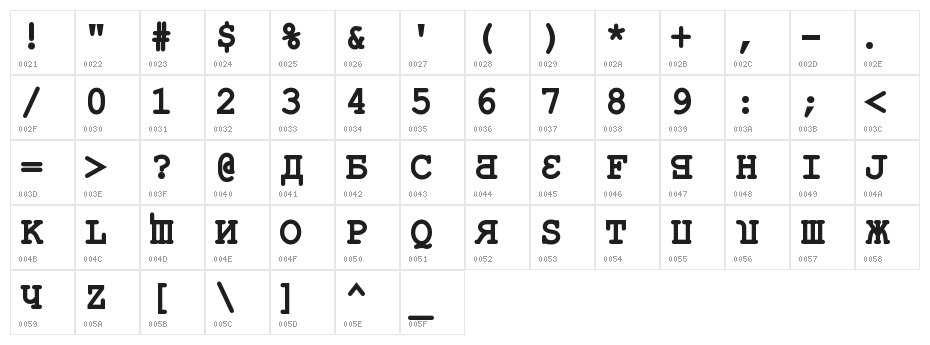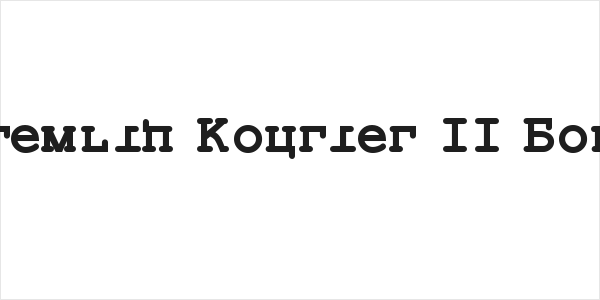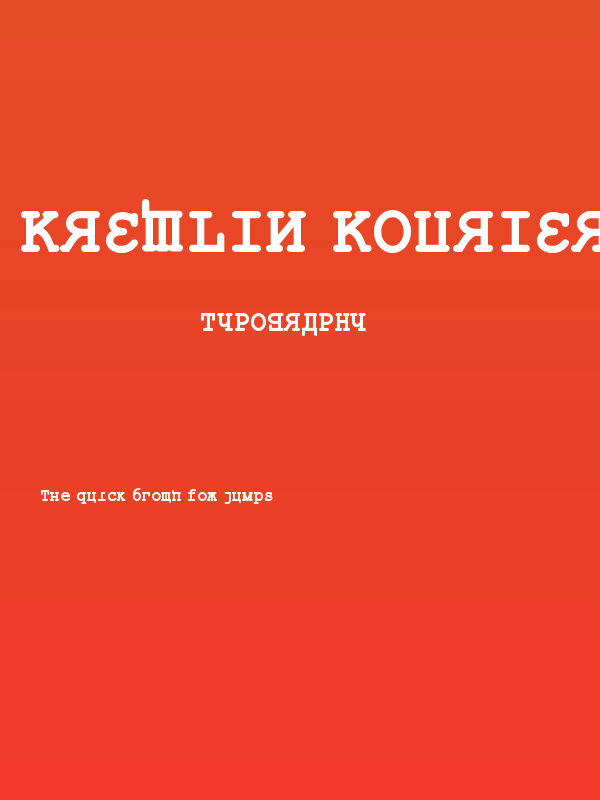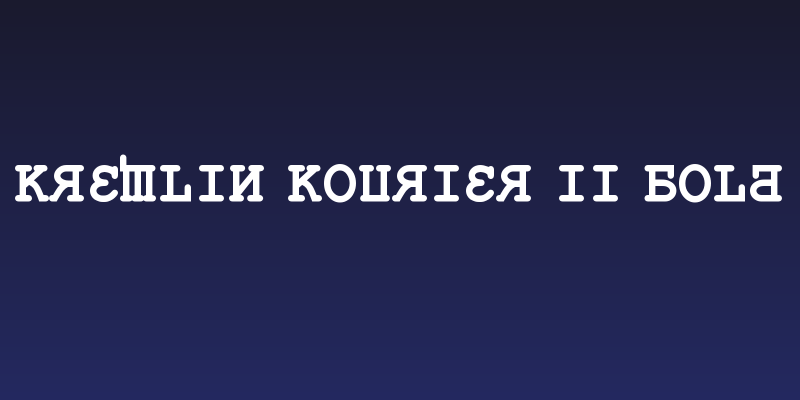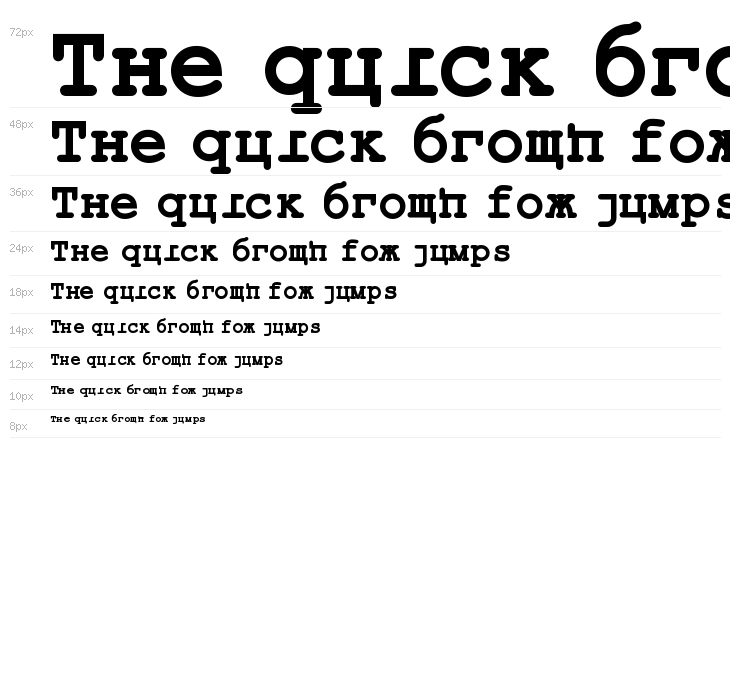
Kremlin Kourier II Bold Font
Kremlin Kourier II Bold Description
This font features a bold and robust design with strong, thick strokes that give it a commanding presence. The characters are well-defined with a slight curvature, adding a touch of elegance to the otherwise sturdy appearance. The uppercase letters are particularly striking, with a uniform height and width that creates a cohesive look. The lowercase letters maintain the boldness of the uppercase, ensuring readability and impact. The numerals are clear and consistent, matching the overall style of the alphabet. Special characters are included, providing versatility for various uses. The font's boldness and clarity make it suitable for attention-grabbing headlines and impactful designs.